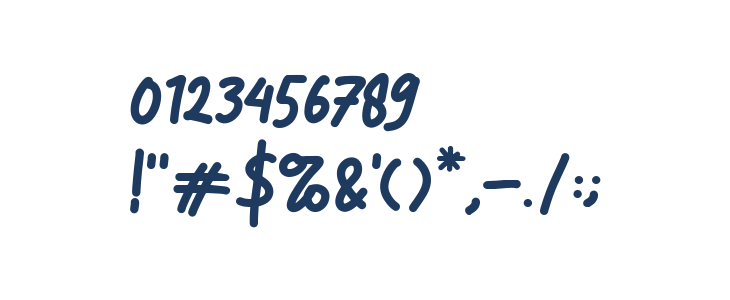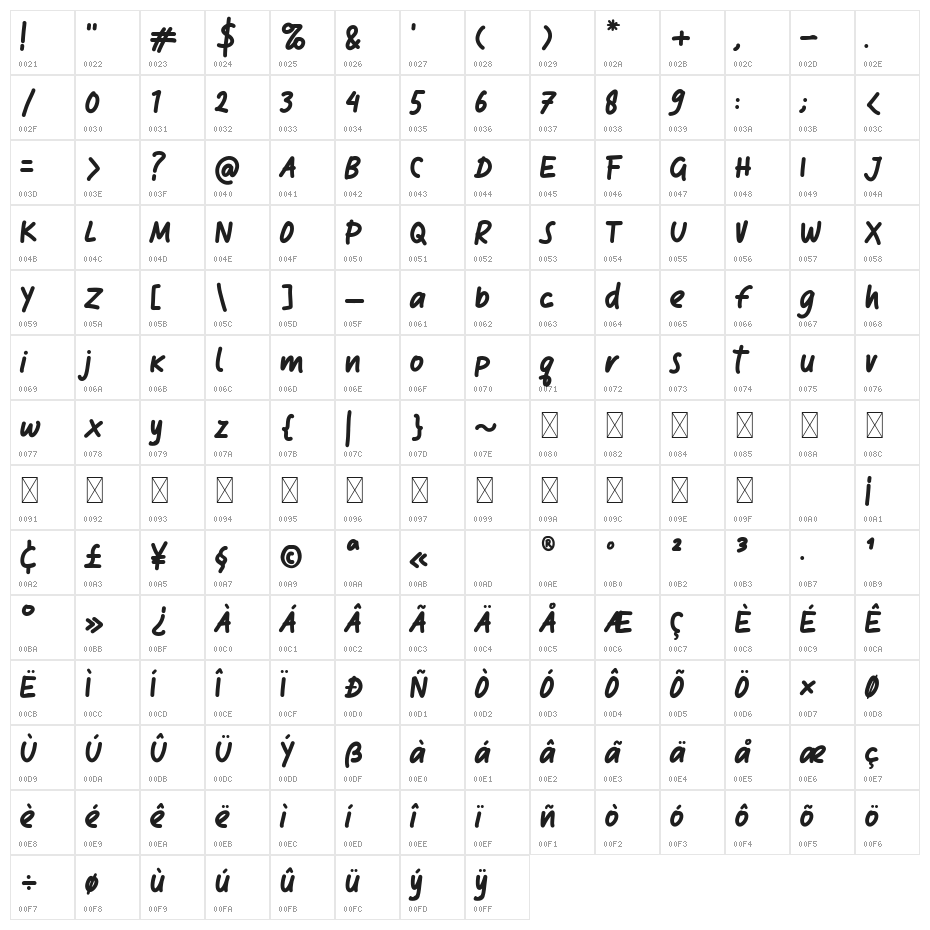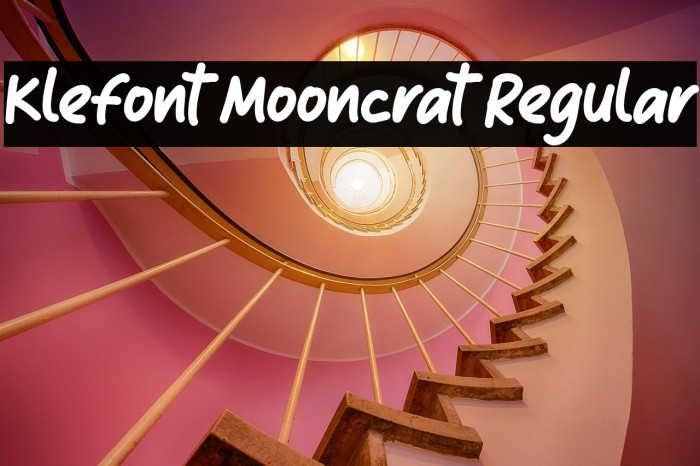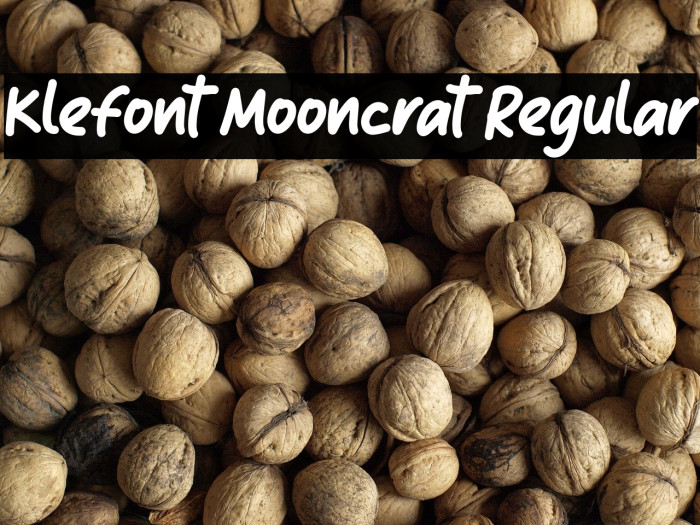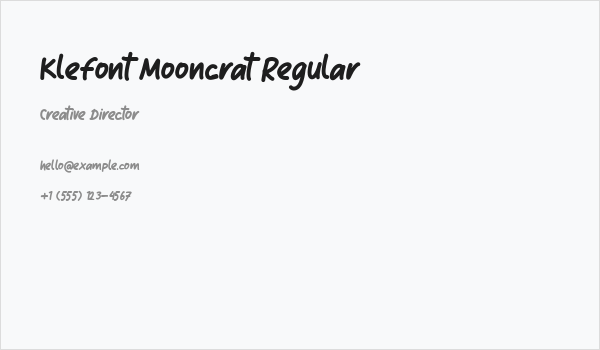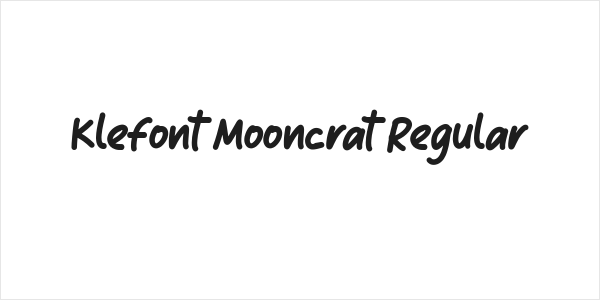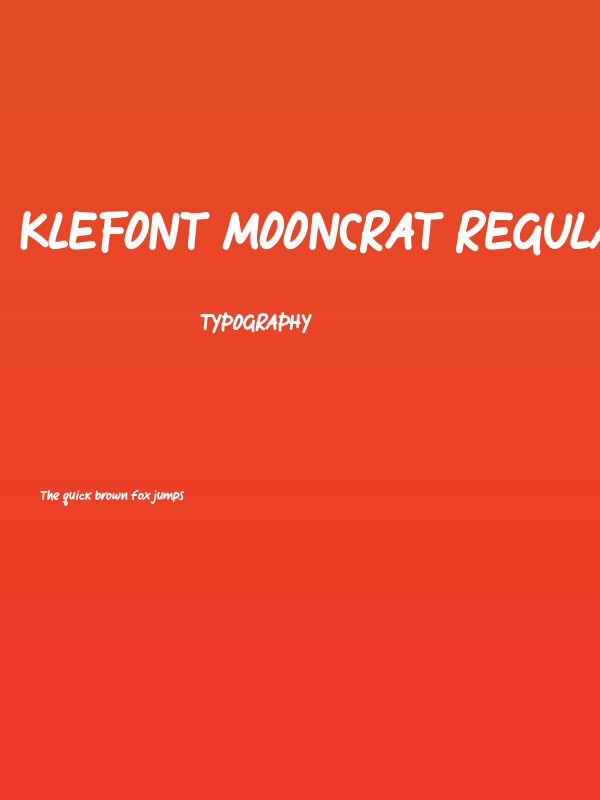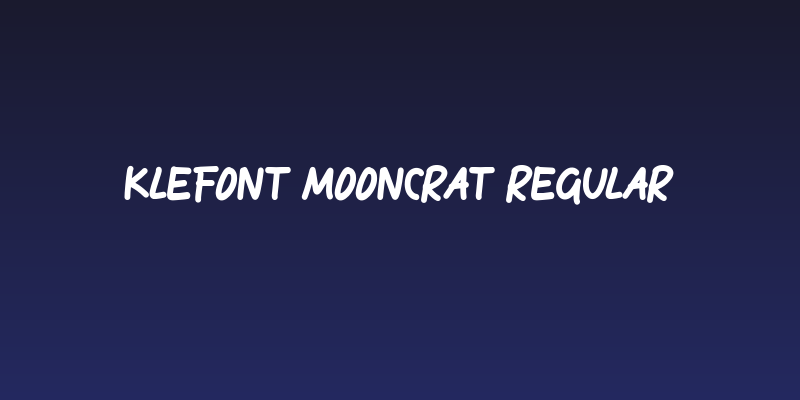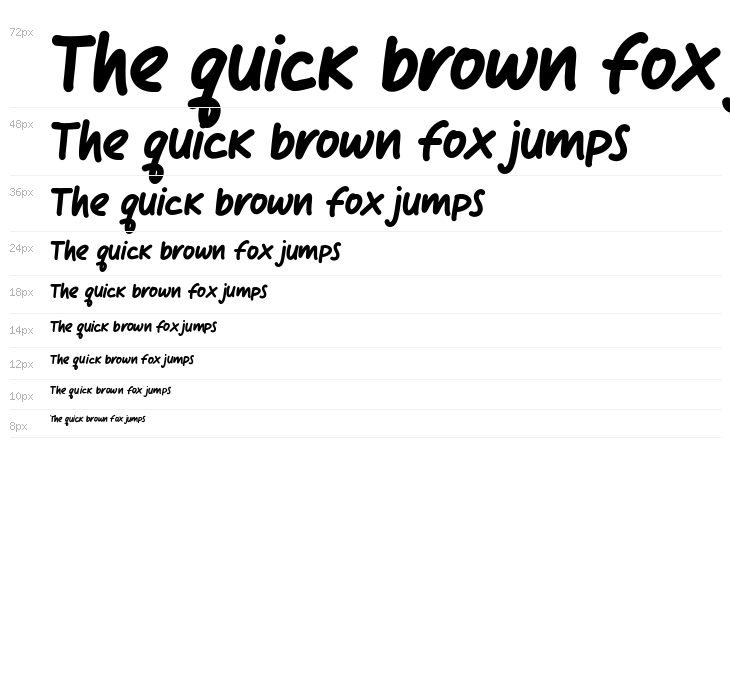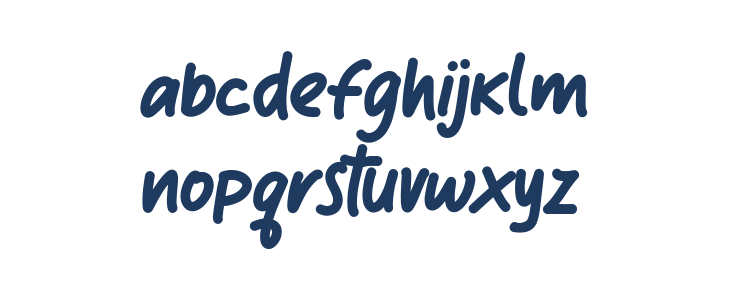
Klefont Mooncrat Regular Font
Klefont Mooncrat Regular Description
This font exhibits a playful and dynamic handwritten style, characterized by its bold and slightly irregular strokes. The letters are rounded and have a casual, friendly appearance, making it ideal for projects that require a personal touch. The uppercase and lowercase letters maintain a consistent style, with a slight slant that adds to the informal feel. The numerals and special characters are designed to match the overall aesthetic, ensuring a cohesive look across all text elements. This font's unique charm makes it suitable for a variety of creative applications.
| Proposed Projects | Ideal for greeting cards, children's books, playful branding, and social media graphics. |